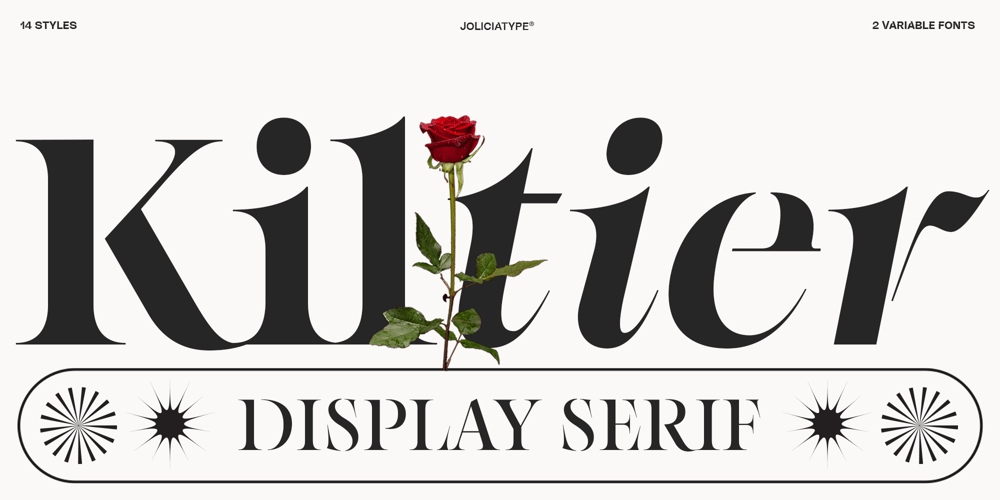
Kiltier
Kiltier font
Kiltier Font Family was designed by Laire Banyu and published by Jolicia Type. Kiltier contains 16 styles and family package options. Kiltier – High Contrast Serif with Timeless EleganceSerif era is back! Kiltier is a high-contrast serif font that blends contemporary aesthetics with timeless elegance. Crafted with precision and meticulous attention to detail, Kiltier comes in 14 weights, both in roman and italic, offering exceptional versatility for various design needs.This font features a wide range of stylistic alternates, allowing for unique and sophisticated typography. The italic style is enhanced with elegant swashes, adding a refined and artistic touch to your compositions.To provide even greater flexibility, we have also included two variable fonts, enabling designers to fine-tune weight and style seamlessly for any project.